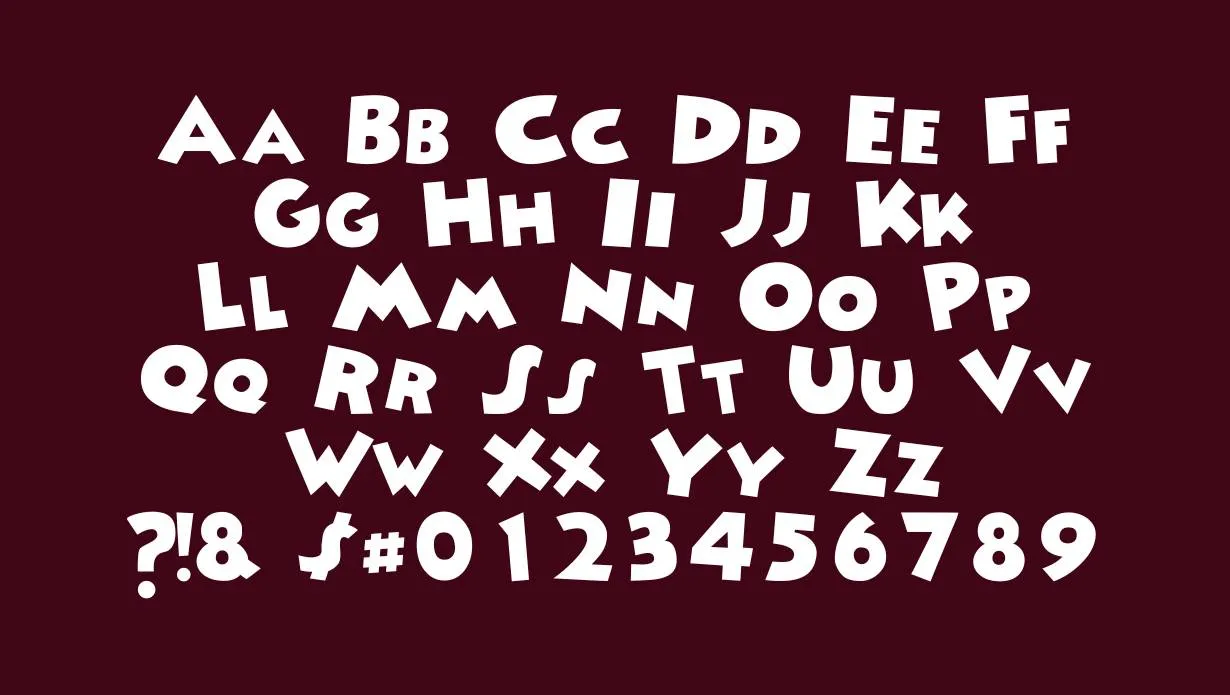
Minnie Font is a fun and playful typeface with a touch of whimsy. It’s perfect for children and the young at heart. This display font was designed by Rafael Neder. You can download it in otf and TTF file versions.
Apply it to kids’ book covers, playful designs, and projects that require a lighthearted font. You can use this font in Canva, Adobe, and Circuit to create amazing designs. This font is also best for pairing, you can combine this font with Playfair Display Font to make amazing designs.